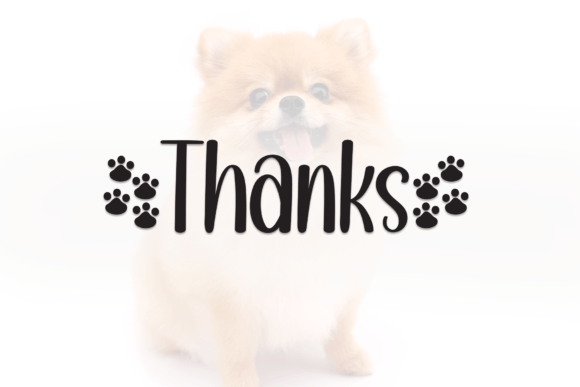
Little Dog Font
Introducing “Little Dog Font,” a playful and lovable script typeface that captures the essence of a small and endearing canine companion. With its gentle curves and wagging tails, this font adds a touch of charm and innocence to your designs. Perfect for children’s books, pet-related branding, and adorable crafts. Let Little Dog Font infuse your projects with adorable paw-someness.